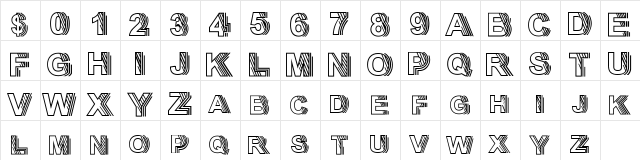
Persona Non Grata Regular
Design Context for Persona Non Grata Typeface
Persona Non Grata is a composed and adaptable typeface that performs quietly and consistently across a wide range of design contexts.